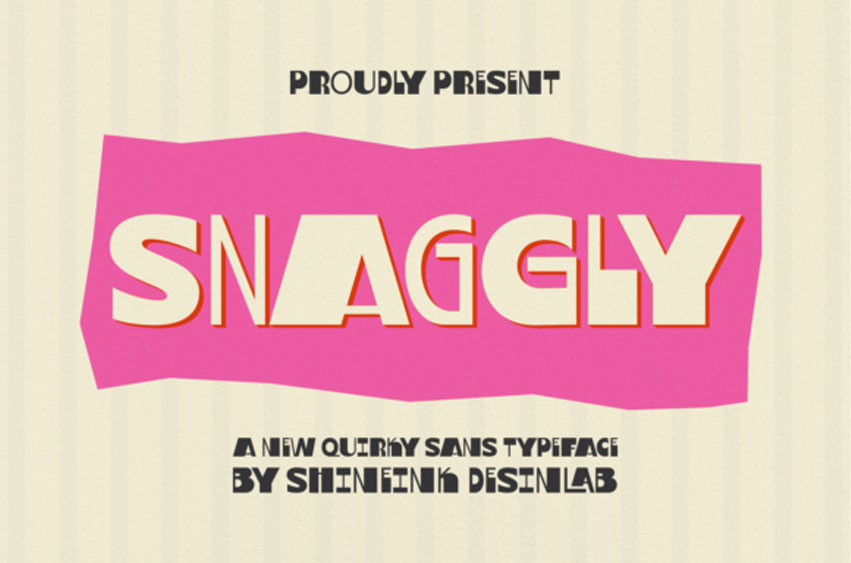
Snaggly Font is a bold and quirky sans serif typeface that celebrates imperfection with style. Its unique charm comes from the playful size variations, creating a “messy but catchy” look that feels organic, expressive, and full of character.
The irregular bold–thin contrast gives Snaggly a lively rhythm, making every word feel dynamic without sacrificing readability. This controlled chaos adds personality and warmth, making the font feel fun and modern at the same time.
Perfect for branding, logos, posters, packaging, headlines, social media content, merchandise, and creative quotes, Snaggly shines in designs that aim to be bold, friendly, and unforgettable. It’s ideal for creative brands, cafés, kids’ projects, playful campaigns, and anyone who wants typography that stands out from the crowd.